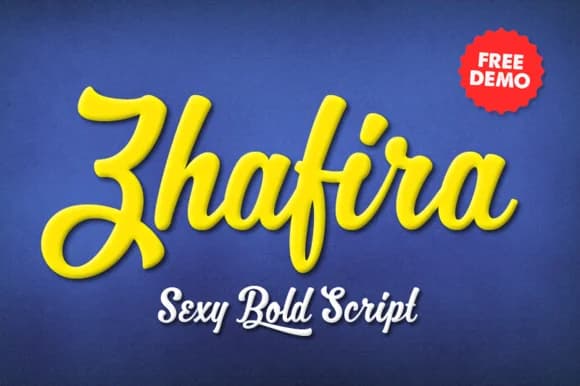
About Zhafira Script Font
Zhafira Script Font by Mikrojihad Typefounder is a flowing handwritten script that brings authentic personality and warmth to typography-driven design work. The typeface features elegant swashes and smooth character connections that create a sense of refined intimacy, whether applied to intimate correspondence, sophisticated branding contexts, or editorial storytelling. Each letterform carries the natural rhythm of handwriting, making any layout feel personally crafted rather than digitally composed.
This script excels across a distinct range of creative applications where personality matters. It works beautifully for wedding invitation suites and save-the-dates where warmth sets the tone, greeting card designs that benefit from genuine personal touch, luxury product labeling and sophisticated packaging for boutique beauty brands and artisanal goods, and social media graphics that need distinctive character to stand out. The natural letterforms adapt seamlessly to both digital displays and print work, making it equally valuable for editorial layouts, custom brand identities, handmade signage projects, and any design demanding handcrafted aesthetic appeal.
- Elegant, Flowing, Zhafira Script
Zhafira Script Font is a script font that shines as a display or heading face. Pair it with a clean sans-serif or serif font for body text β the contrast creates a clear hierarchy while the two styles stay balanced and easy to read.